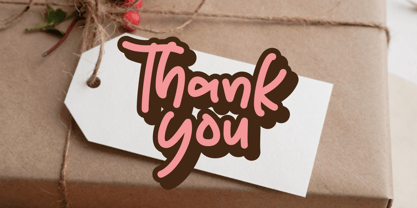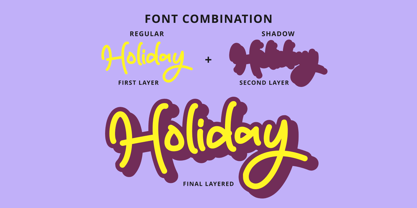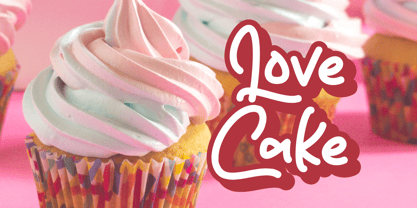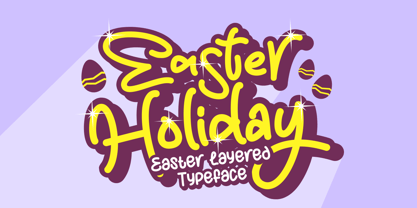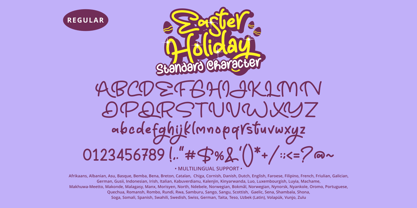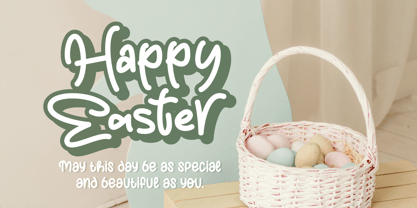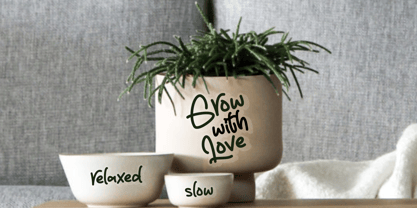
Easter Holiday Regular
by Mabhal Studio
The Easter Holiday Regular Font Family was designed by Abdullah Mabhal and published by Mabhal Studio. Easter Holiday Regular contains 2 styles and family package options. More about this family
Easter Holiday Font is a cheerful and bubbly handwritten typeface designed to bring joy to your creative projects. This unique font features a layered system consisting of Regular and Shadow styles, allowing you to create a playful 3D effect with ease. It is perfect for Easter-themed greeting cards, spring invitations, stickers, nursery decor, and bakery branding. With its friendly character and full multilingual support, it's a versatile choice for any whimsical and festive design.